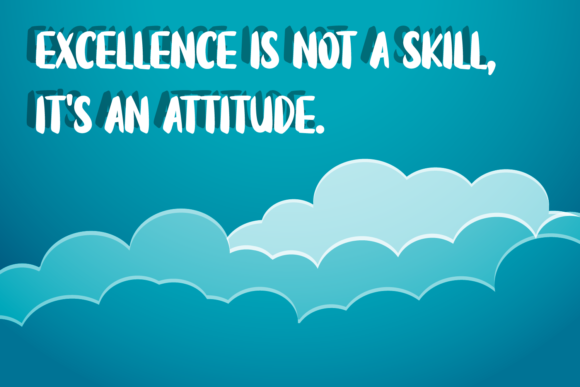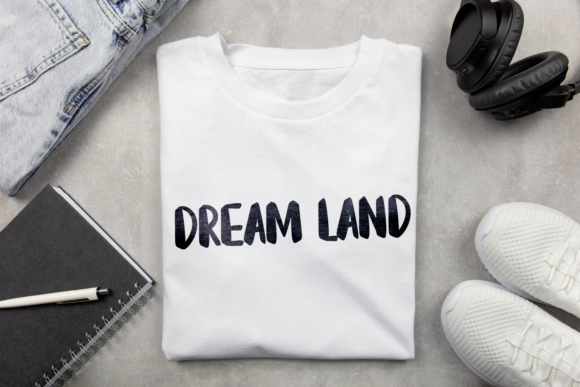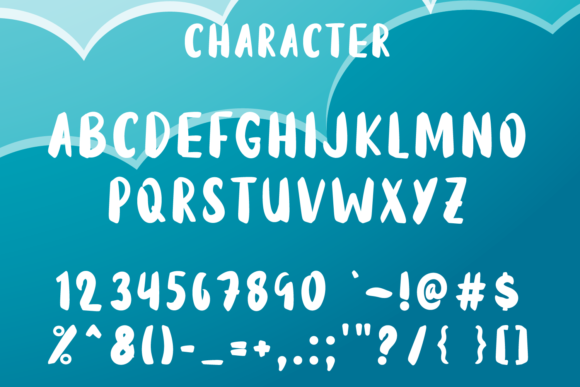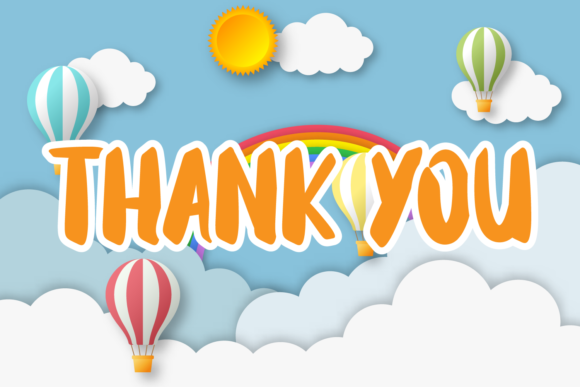
Hello Clouds Font: The Perfect Choice for Adding a Touch of Joy to Your Designs
In the world of typography, fonts play a crucial role in conveying the tone and personality of a design. When it comes to creating playful, fun, and engaging content, the right font can make all the difference. This is where Hello Clouds Font comes in – a delightful display font designed to add a touch of joy to your creations. In this article, we’ll explore the features and benefits of Hello Clouds Font, and why it’s an excellent choice for designers and crafters looking to infuse their work with a sense of whimsy and friendliness.
What is Hello Clouds Font?
Hello Clouds Font is a fun and friendly display font that is perfect for a wide range of design applications. Its playful and approachable style makes it an ideal choice for cartoon-related designs, children’s games, quotes, titles, brand names, book covers, posters, and any other creation that requires a dash of fun and personality. The font’s unique and charming design is sure to capture the attention of your audience and leave a lasting impression.
Key Features of Hello Clouds Font
Hello Clouds Font boasts several key features that make it a standout choice for designers and crafters. Some of its notable features include:
- Playful and Friendly Design: The font’s design is characterized by its playful and friendly style, making it perfect for creating fun and engaging content.
- High-Quality Letters and Characters: The font features high-quality letters and characters that are crisp and clear, ensuring that your designs look professional and polished.
- Easy to Read: Despite its playful design, Hello Clouds Font is easy to read, making it suitable for use in a variety of design applications, from titles and headings to body text.
- Versatile: The font is versatile and can be used in a wide range of design applications, from digital designs to print materials.
Benefits of Using Hello Clouds Font
There are several benefits to using Hello Clouds Font in your designs. Some of the most significant advantages include:
- Adds a Touch of Joy to Your Designs: The font’s playful and friendly design adds a touch of joy to your creations, making them more engaging and appealing to your audience.
- Perfect for Cartoon-Related Designs: The font’s playful style makes it perfect for cartoon-related designs, children’s games, and other content aimed at a younger audience.
- Enhances Brand Personality: Hello Clouds Font can help enhance your brand’s personality and tone, making it more relatable and memorable to your audience.
Who Can Benefit from Hello Clouds Font?
Hello Clouds Font is a versatile font that can benefit a wide range of designers and crafters. Some of the professionals who can benefit from this font include:
- Graphic Designers: Graphic designers can use Hello Clouds Font to add a touch of fun and personality to their designs, from logos and branding materials to posters and flyers.
- Illustrators: Illustrators can use the font to add text to their illustrations, making them more engaging and appealing to their audience.
- Crafters: Crafters can use Hello Clouds Font to create handmade cards, gift tags, and other paper crafts that require a personal touch.
- Digital Artists: Digital artists can use the font to add text to their digital art, making it more visually appealing and engaging.
Hello Clouds Font is a fun and friendly display font that is perfect for adding a touch of joy to your designs. Its playful and approachable style makes it an ideal choice for cartoon-related designs, children’s games, quotes, titles, brand names, book covers, posters, and any other creation that requires a dash of fun and personality. With its high-quality letters and characters, ease of use, and versatility, Hello Clouds Font is a great choice for designers and crafters looking to infuse their work with a sense of whimsy and friendliness.